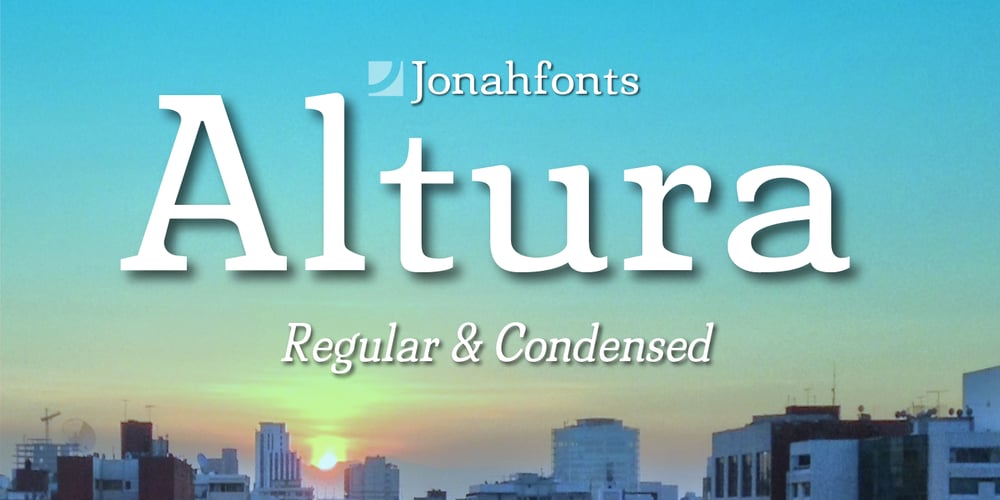
Altura Font Family was designed by John Nahmias and published by Jonahfonts. Altura contains 10 styles and family package options. Uncommon-serifs with common Glyphs. Recommended for posters, titles, book covers, books, greeting cards, signage, packaging, invitations, magazine articles and advertising.